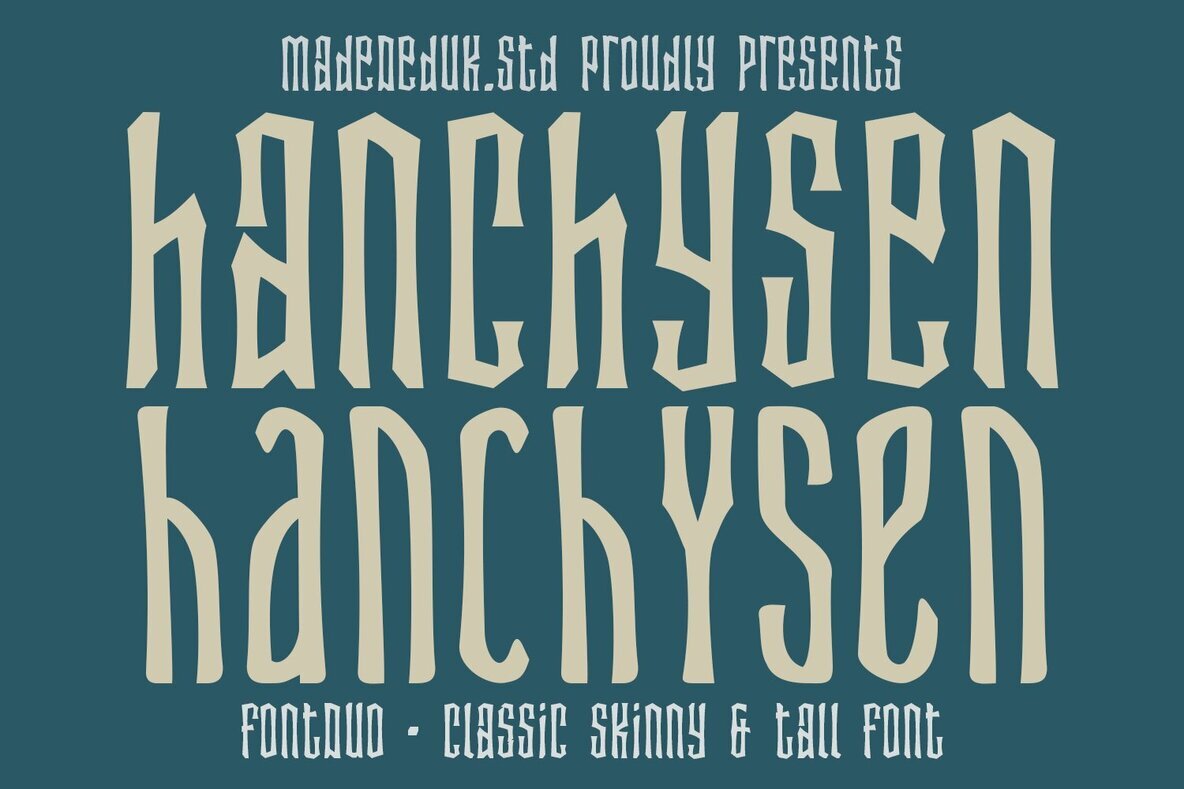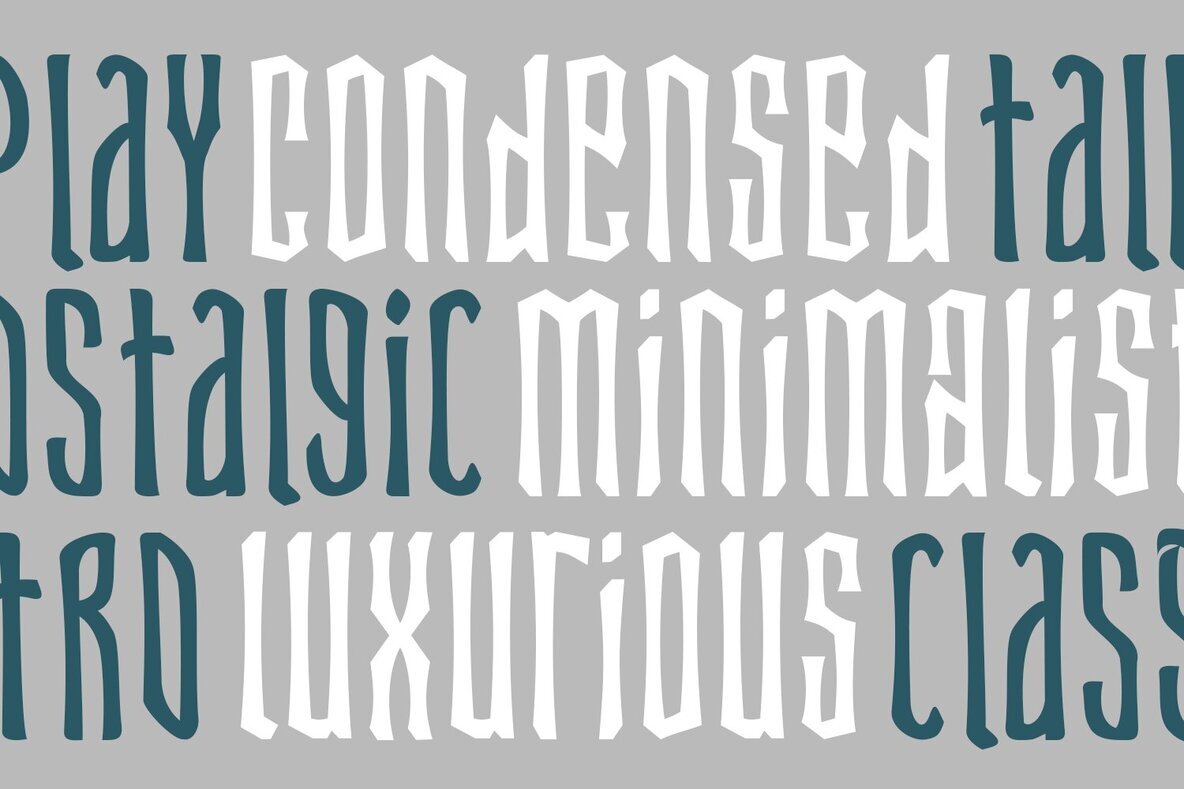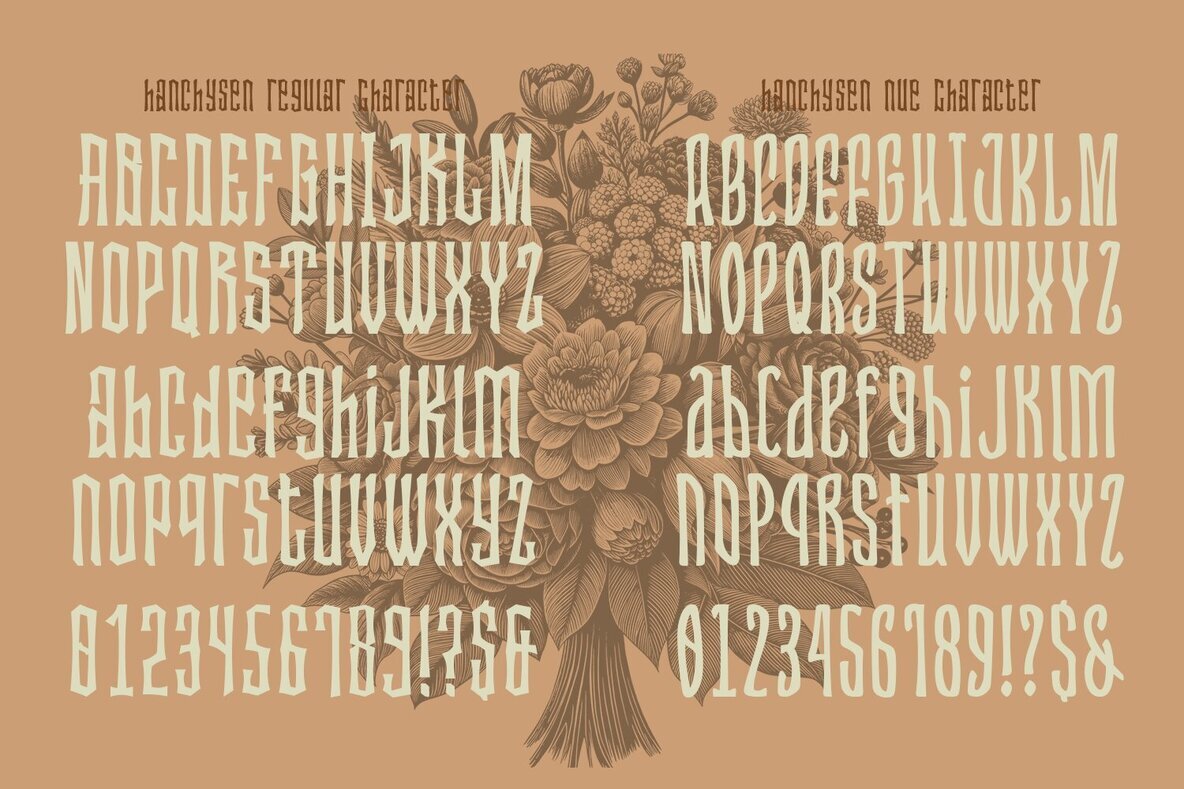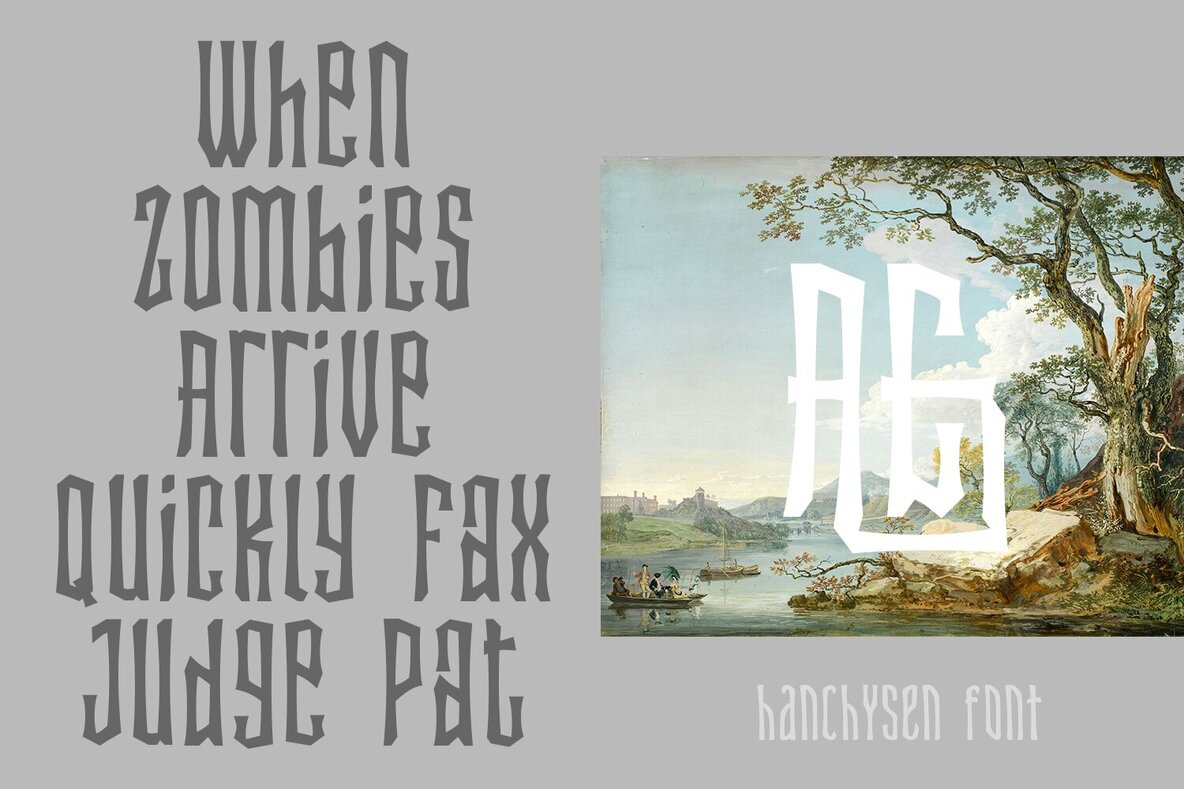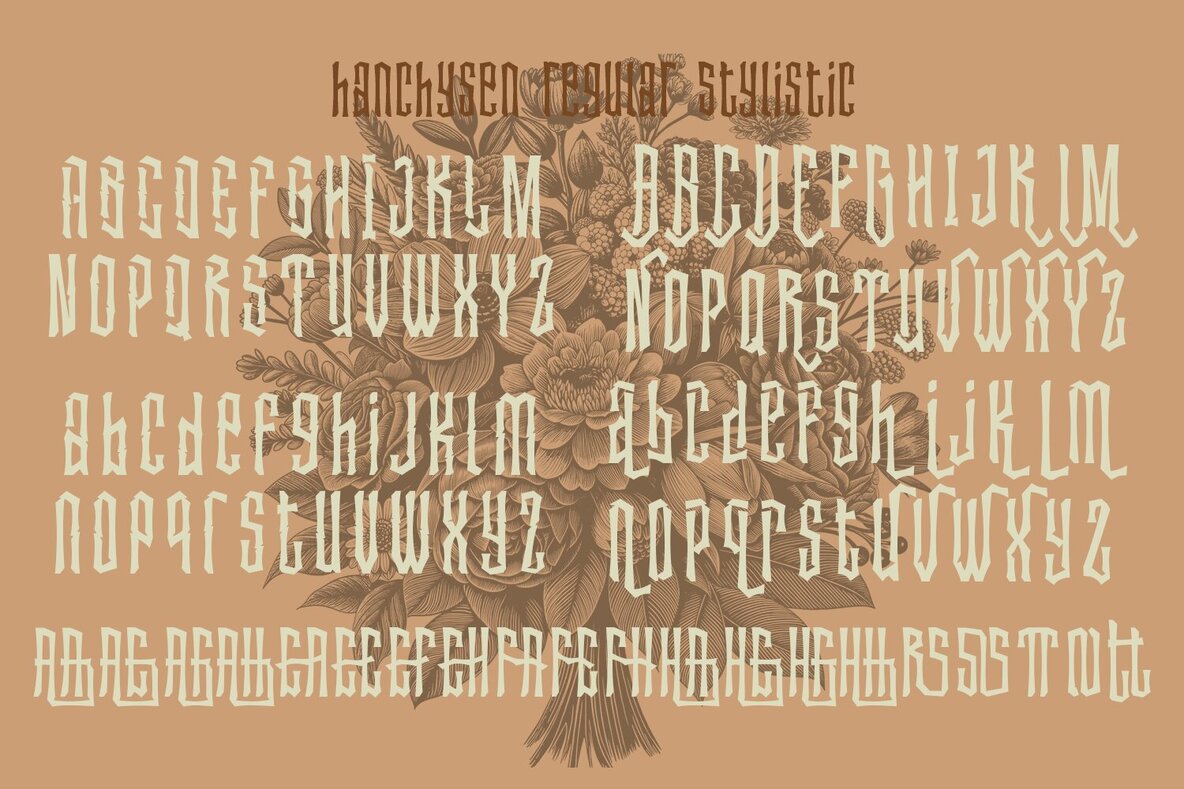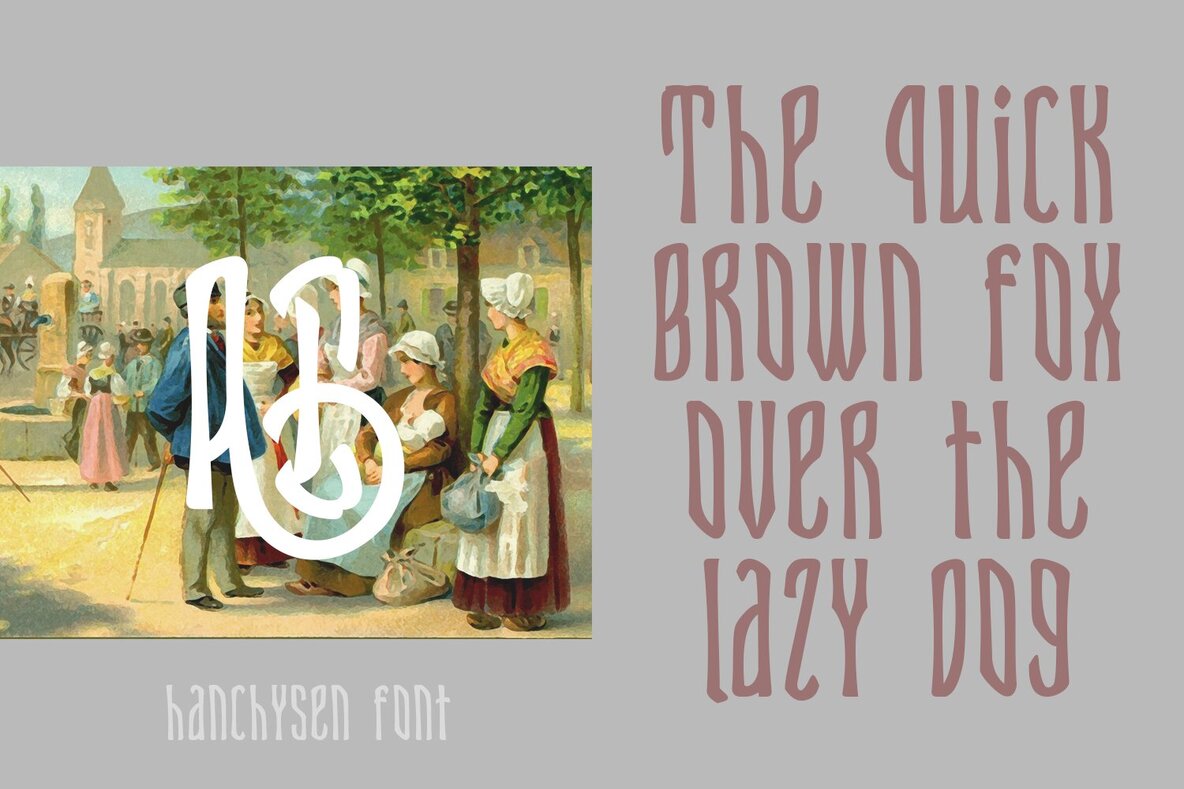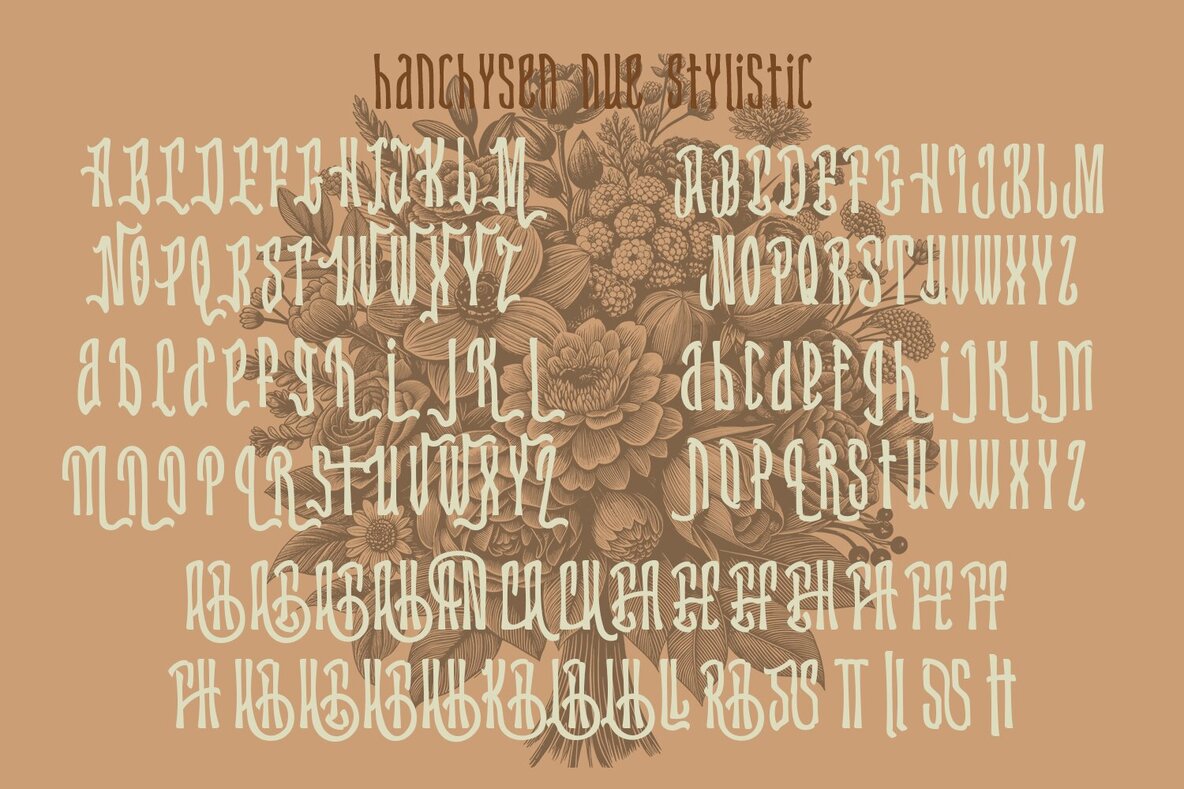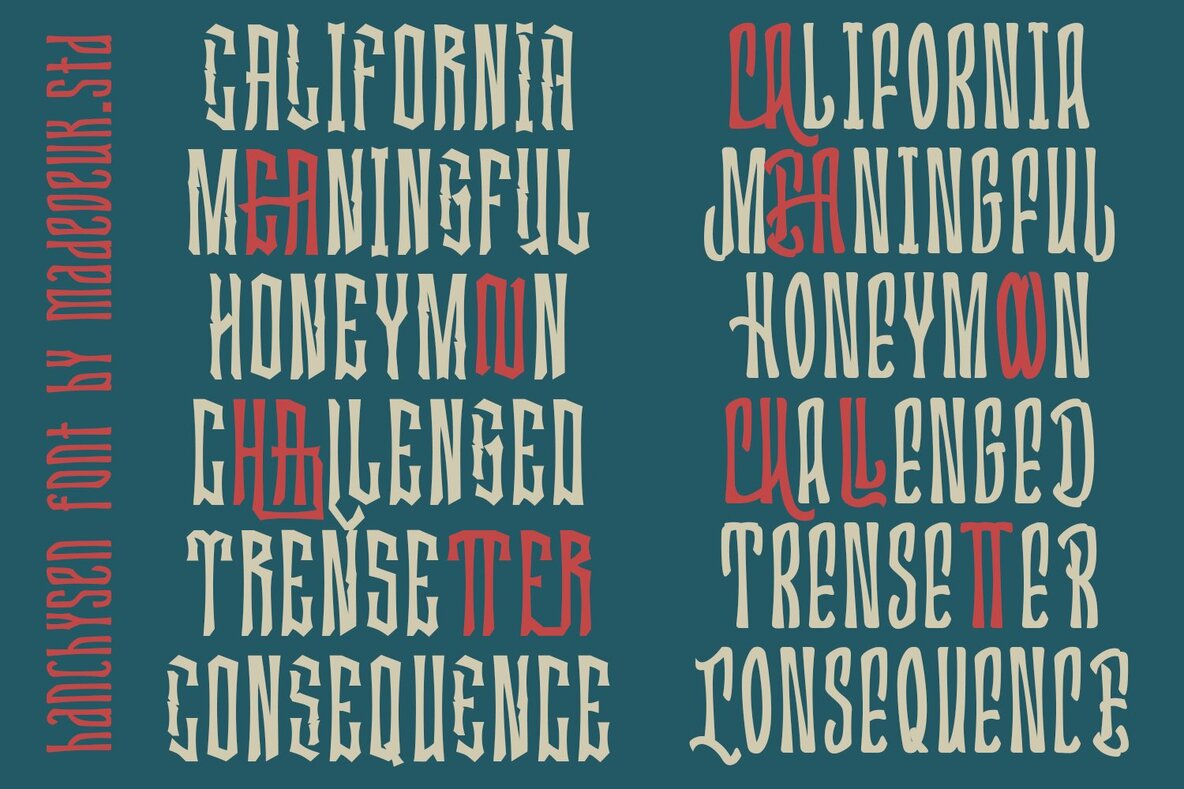
Hanchysen Font
Hanchysen stands out with its classic skinny and tall silhouette, offering dramatic verticality and high-contrast strokes. Ideal for high-fashion headlines and sleek, modern designs, this ultra-condensed font exudes sophistication and style. It's perfect for logos, contemporary posters, album art, and branding that demands attention.Hanchysen Font Duo